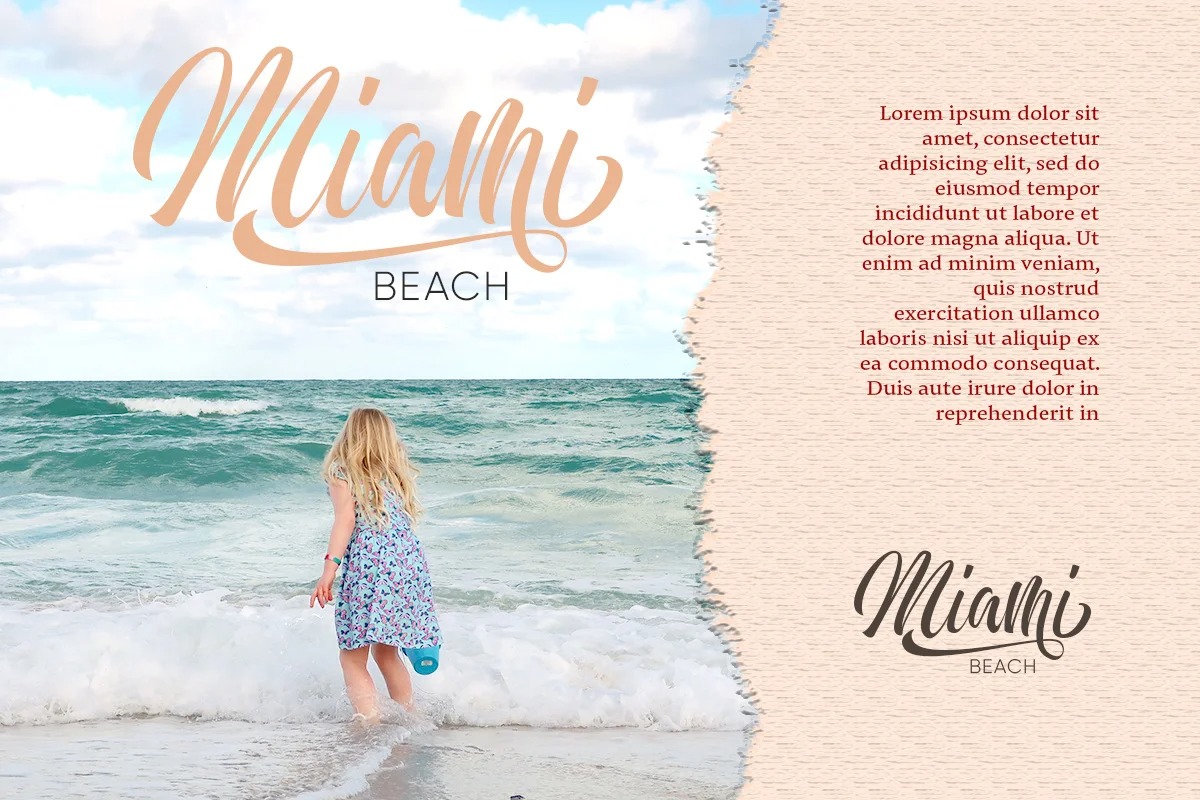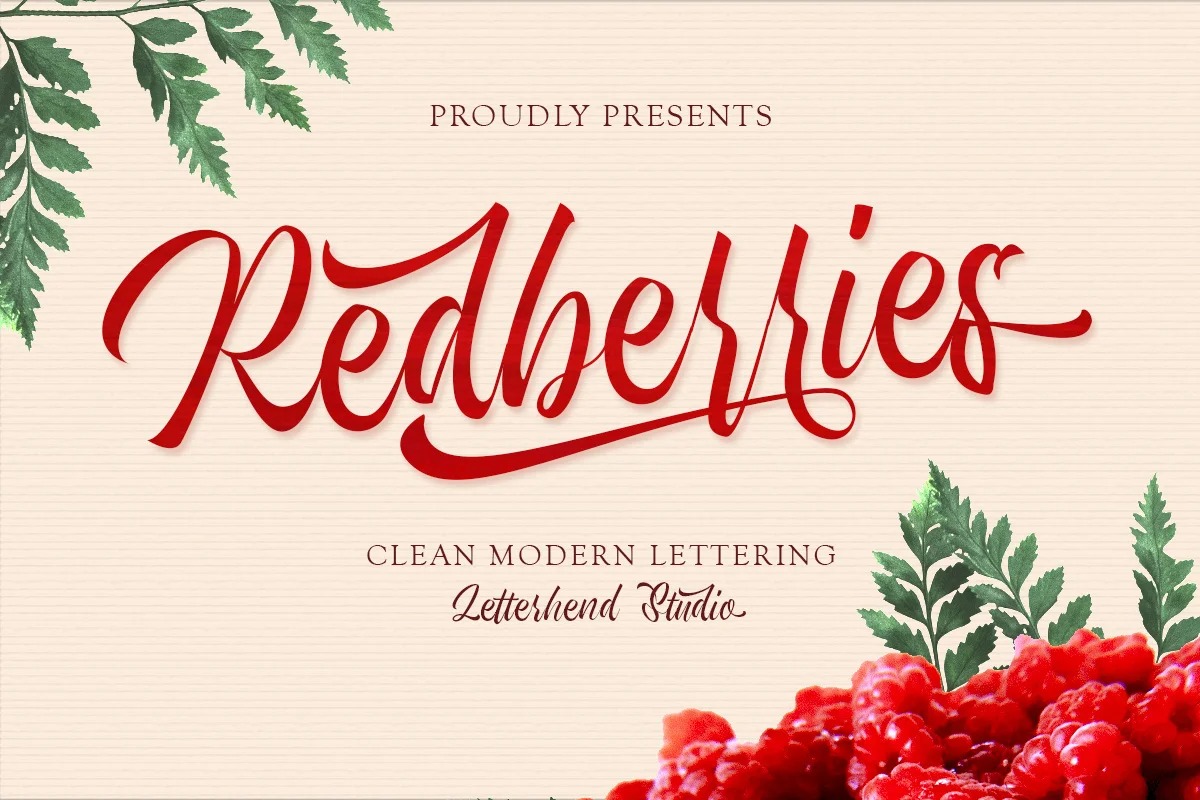
Redberries Font
Redberries Calligraphy Font
It’s a beautiful script typeface created by Letterhend Studio with unique and modern feel. This type of font perfectly made to be applied especially in logo, and the other various formal forms such as invitations, labels, logos, magazines, books, greeting / wedding cards, packaging, fashion, make up, stationery, novels, labels or any type of advertising purpose.